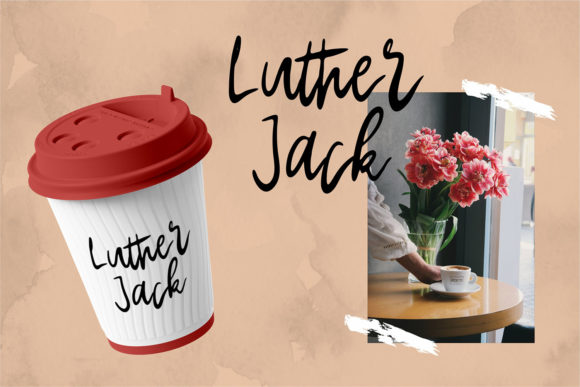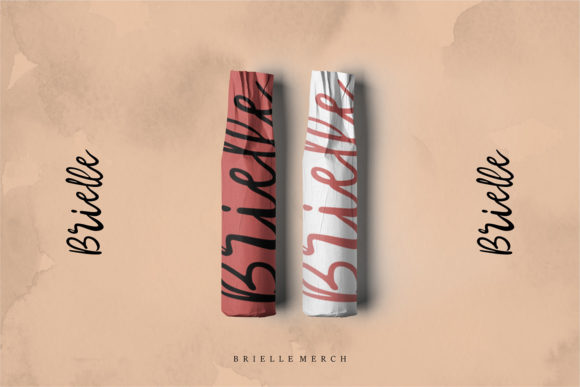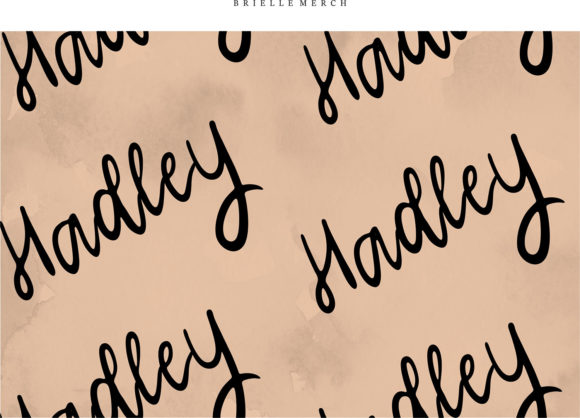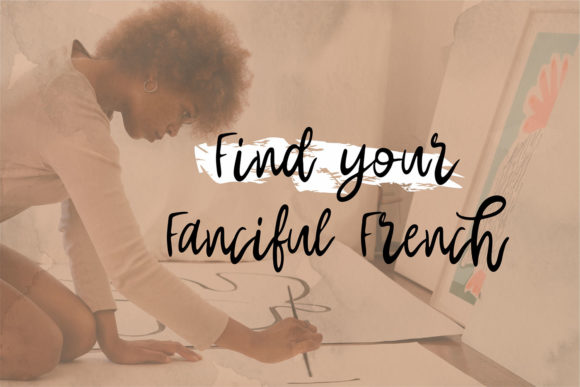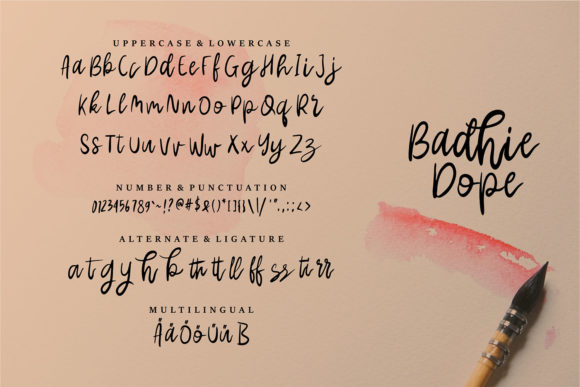
About Badhie Dope Font
Badhie Dope is a hipster handwritten font, featuring a beautiful flow. It can be used for various purposes such as logos, wedding invitations, headings, t-shirts, letterhead, signage, labels, news, posters, badges and so much more.